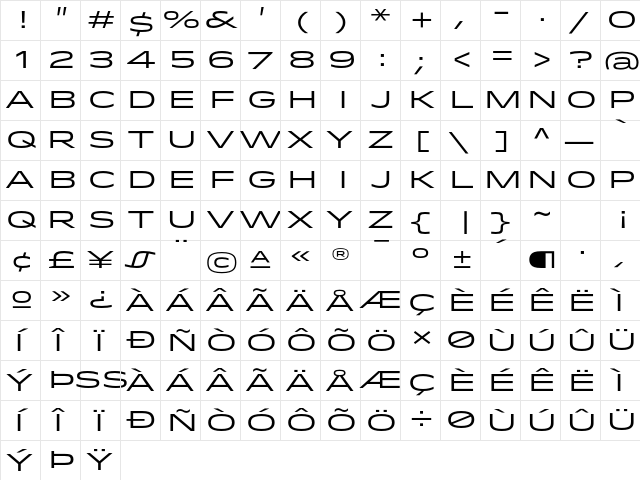
Idlewild Book
| Designer | Hoefler & Frere-Jones |
Design Context for Idlewild Typeface
Idlewild offers clean, dependable letterforms without strong stylistic allegiance, making it a practical choice for designers who need flexibility.
Pro Tip: Use Idlewild in both headline and body roles to test its range before committing to a single application.